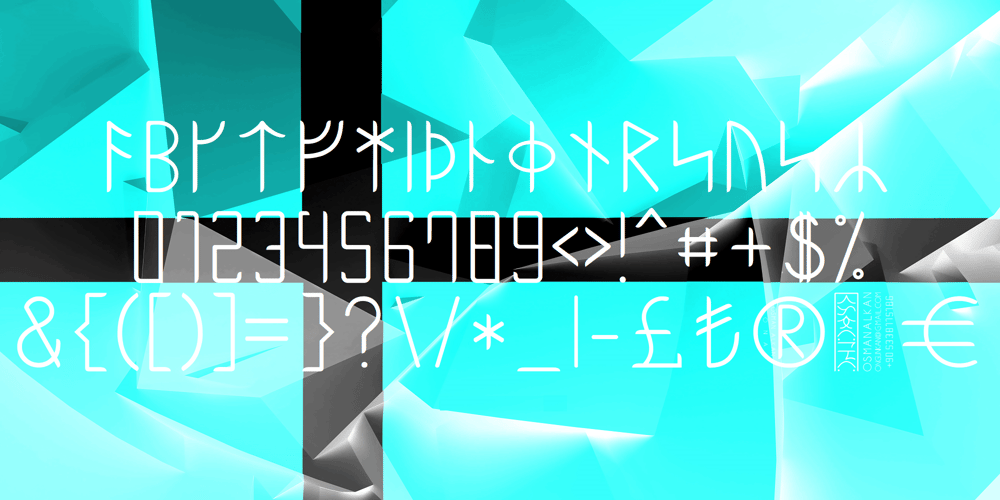
Ongunkan Danish Futhark Font Family was designed by Osman Nuri ALKAN and published by Runic World Tamgacı. Ongunkan Danish Futhark contains 1 styles and family package options. THE DANISH RUNESPrior to 500 AD the 24-rune Elder Futhark was used in Denmark. From 500 AD to 800 AD there were many transitional futharks, reflecting a change from the 24-rune Futhark to the 16-rune Futharks. By the end of this period, the 24-rune Futhark went completely out of use and the 16-rune Futharks had prevailed.From 900 AD some of the runes changed, visually and phonetically. This occurred again about 950 AD and 1100 AD due to language changes. Runes dated to 1300 AD show evidence of being influenced by the Latin alphabet.Runes found in Skåne, Halland and Blekinge in Sweden, and runes found in Schleswig-Holstein in Germany, is counted among Danish runes, because in the Runic period, this was Danish land.